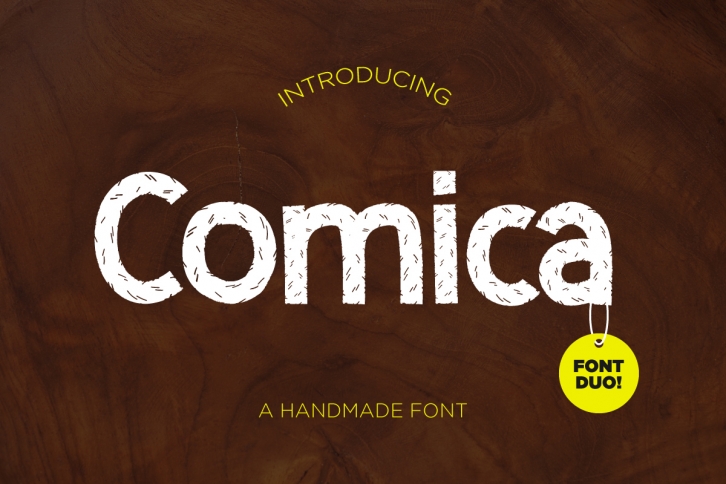
Comica is a handmade font family inspired by nature and the animal kingdom. This is a friendly, sans serif font that can be used a number of ways and truly stands out against texture.